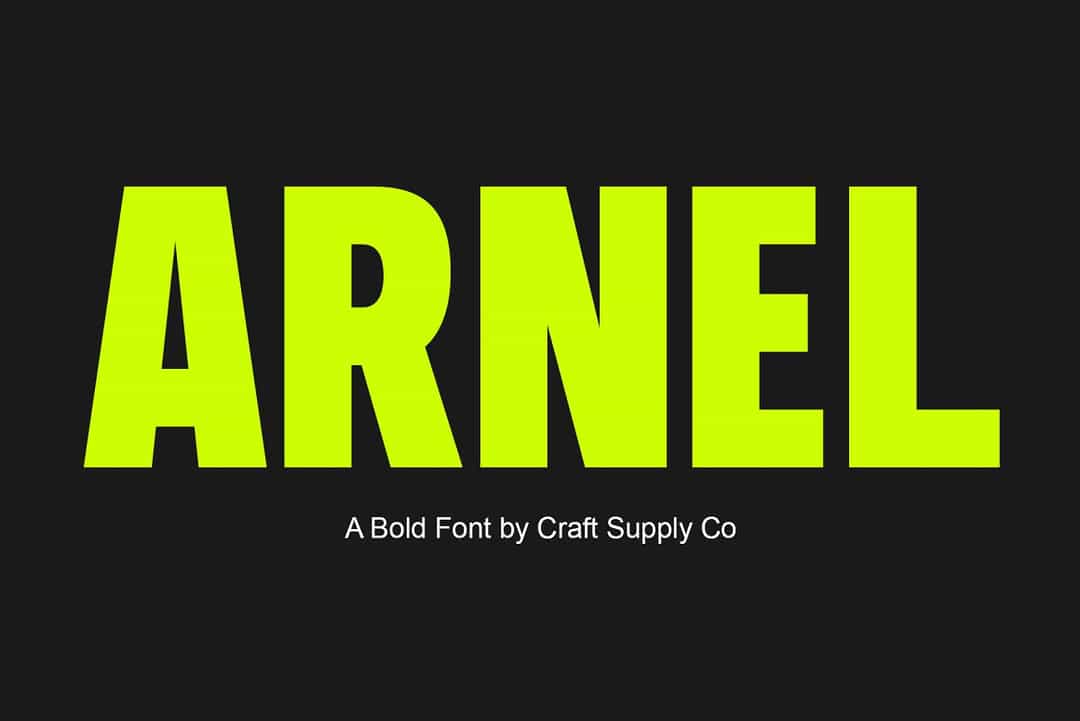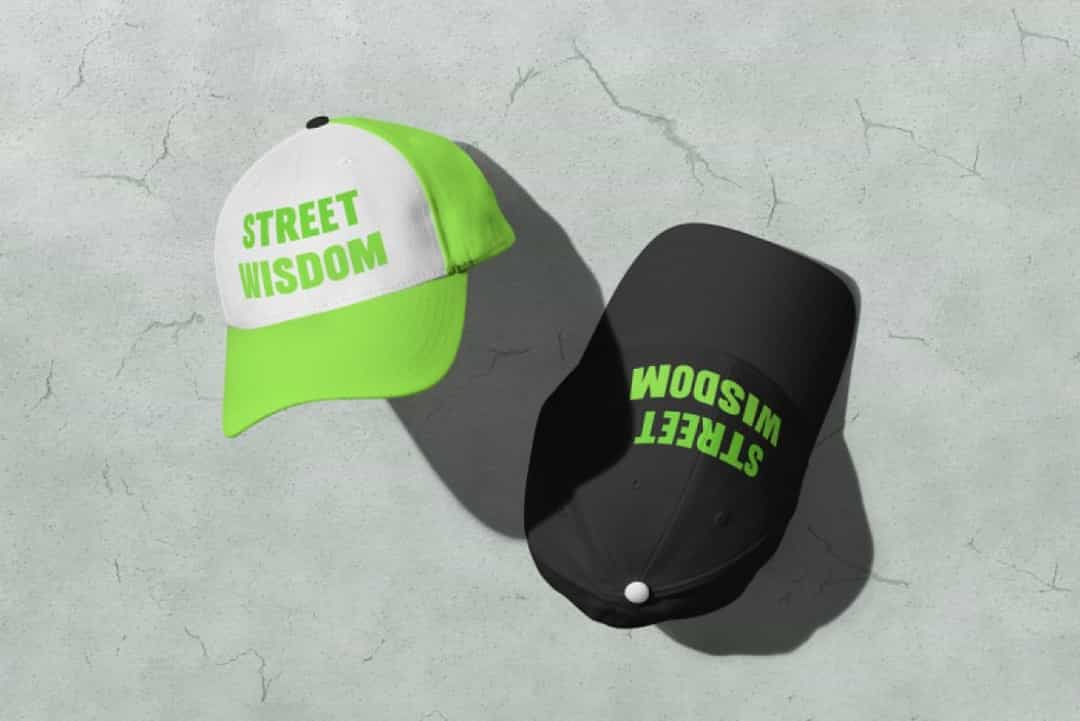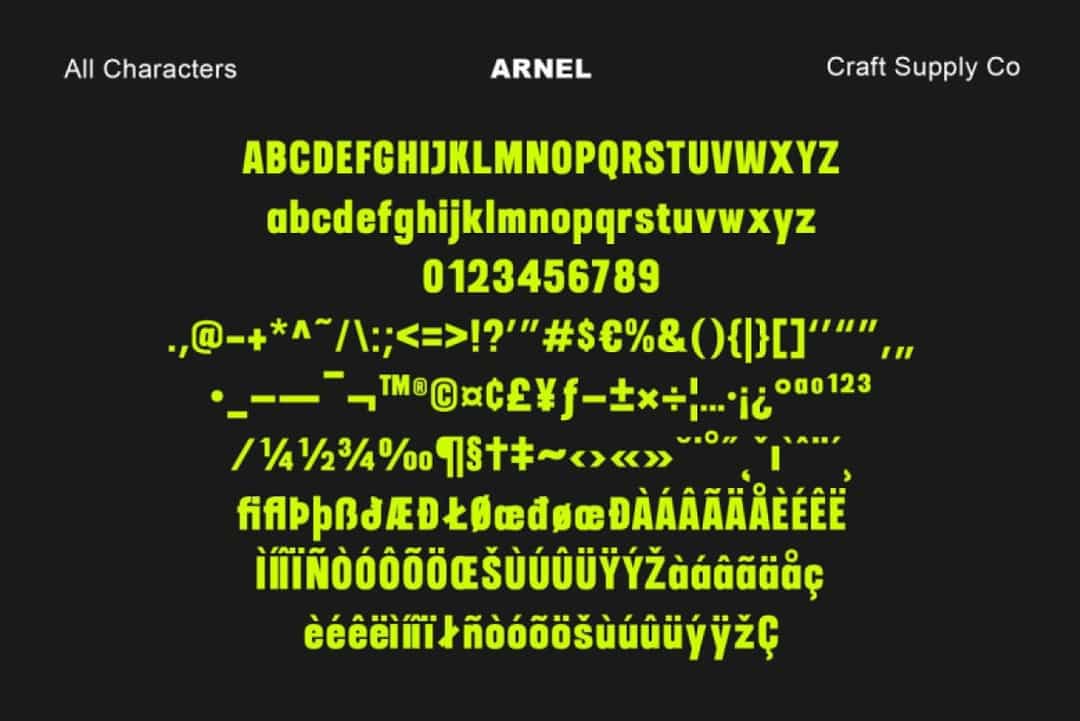
Arnel is an arresting sans serif font that exudes power and masculinity, designed to capture viewers as an ad-hoc typeface. With its striking, strong characters it easily draws the eye, making Arnel an ideal option for many designs.